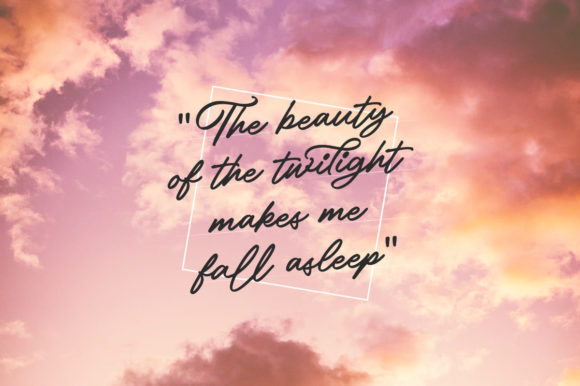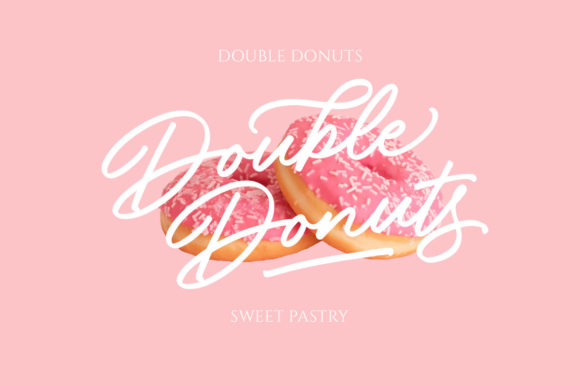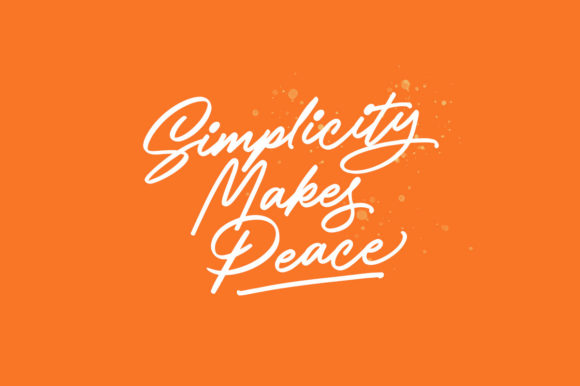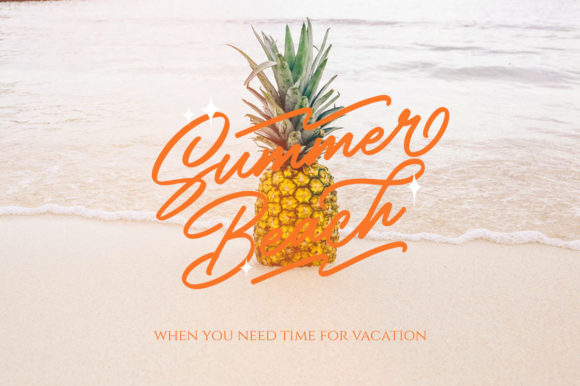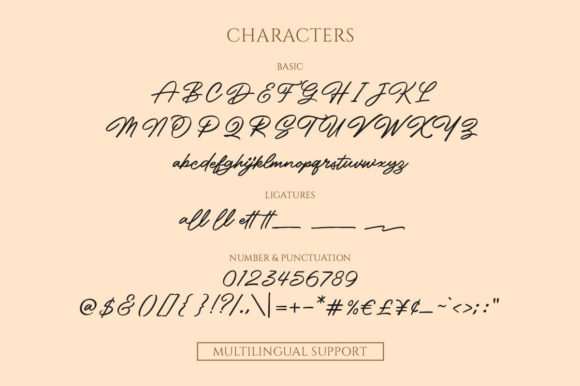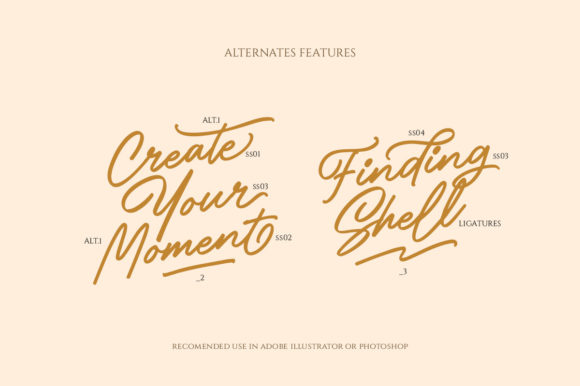
Introducing Haystack Font: Elevate Your Designs with Elegance and Sophistication
Are you on the hunt for a font that exudes class, elegance, and modernity? Look no further than Haystack Font, a stunning script font that is sure to take your designs to the next level. With its refined and beautiful aesthetic, Haystack Font is perfect for a wide range of applications, from logos and branding to invitations, stationery, wedding designs, social media posts, and beyond.
The Characteristics of Haystack Font
So, what makes Haystack Font so special? For starters, its script style is both elegant and modern, making it an excellent choice for designers who want to create a sophisticated look. The font’s refined lines and curves give it a luxurious feel that’s perfect for high-end branding, weddings, and other special occasions.
One of the standout features of Haystack Font is its versatility. Whether you’re looking to create a bold statement or a more subtle design, this font can adapt to any style or theme. Its clean lines and classic aesthetic ensure that it will never go out of style, making it a valuable addition to any designer’s toolkit.
Uses for Haystack Font
Haystack Font is incredibly versatile, and its uses are endless. Here are just a few ideas to get you started:
- Invitations and Stationery: Add a touch of elegance to your invitations, business cards, and other stationery with Haystack Font.
- Wedding Designs: Make your special day even more unforgettable with beautiful wedding designs that feature Haystack Font.
- Social Media Posts: Elevate your social media game with stylish and sophisticated posts that showcase your brand’s personality.
- Packaging and Advertising: Stand out on store shelves and in advertisements with eye-catching designs that feature Haystack Font.
Why Choose Haystack Font?
With so many fonts on the market, why choose Haystack Font? Here are just a few reasons why designers and crafters love this beautiful script font:
- Unique and Exclusive: Haystack Font is a one-of-a-kind font that will help you stand out from the crowd.
- Elegant and Sophisticated: This font exudes class and sophistication, making it perfect for high-end designs.
- Versatile: Haystack Font can be used for a wide range of applications, from logos and branding to social media posts and packaging.
- Easy to Read: Despite its elegant aesthetic, Haystack Font is easy to read and understand, making it perfect for body text and other applications where legibility is key.
Tips for Using Haystack Font
To get the most out of Haystack Font, here are a few tips to keep in mind:
- Pair it with Other Fonts: Experiment with pairing Haystack Font with other fonts to create a unique and eye-catching design.
- Use it for Headlines: Haystack Font is perfect for headlines and titles, where its elegant aesthetic can really shine.
- Experiment with Colors: Try out different colors and textures to see how they affect the overall look and feel of your design.
In conclusion, Haystack Font is a beautiful and refined script font that is sure to elevate your designs to the next level. With its elegant and sophisticated aesthetic, versatility, and ease of use, it’s the perfect choice for designers and crafters who want to create stunning and effective designs. So why wait? Download Haystack Font today and start creating your own beautiful designs!